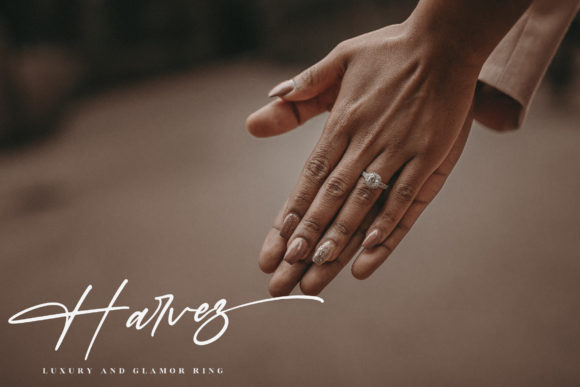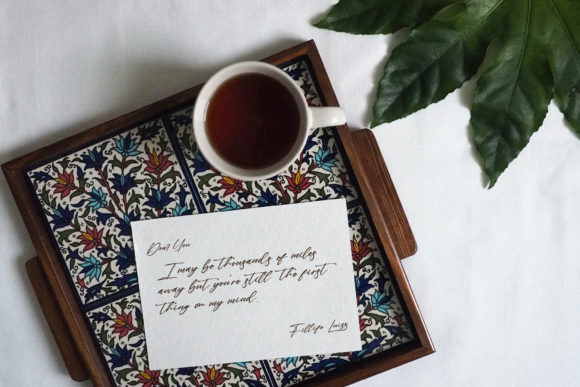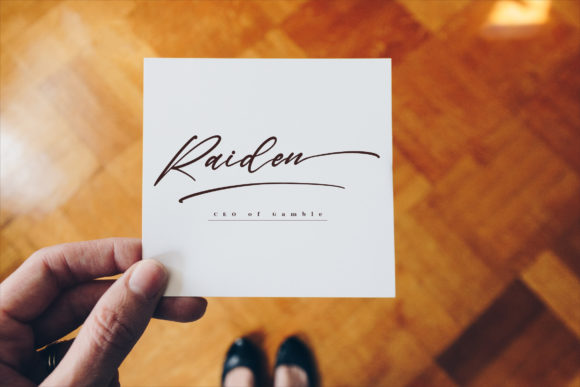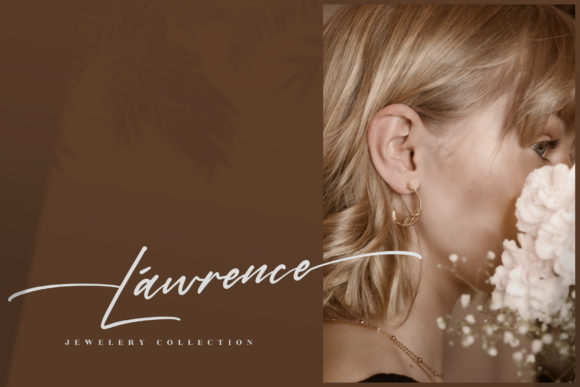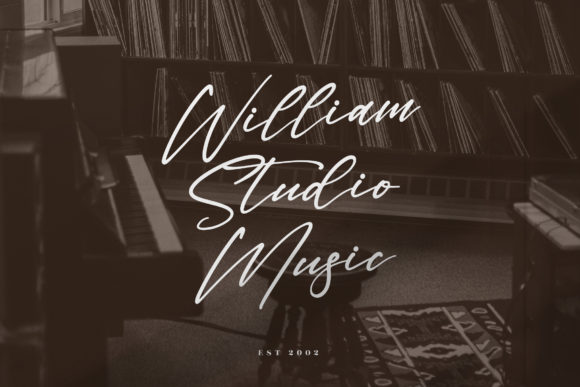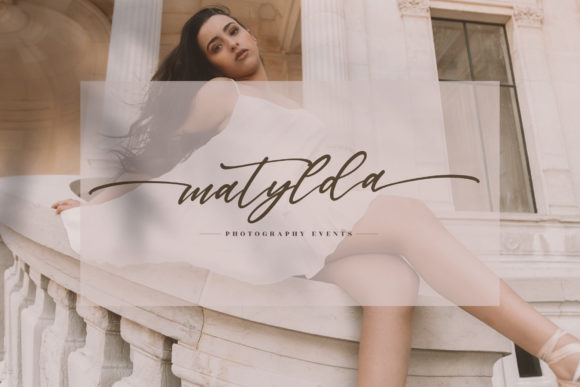
Introducing Contage Bright Font: Elevate Your Designs with Elegance and Class
Are you looking for a font that adds a touch of sophistication and refinement to your designs? Look no further than Contage Bright Font. This lovely and delicate script font is specifically crafted for designers, crafters, and anyone seeking a beautiful and refreshing look for their creative projects. With its elegant and classy appeal, Contage Bright is sure to become your go-to font for a wide range of design applications.
The Beauty of Contage Bright
Contage Bright Font boasts a unique and captivating design that exudes elegance and class. Its delicate script style is perfect for adding a touch of sophistication to any design, whether you’re working on a logo, branding materials, invitations, or social media graphics. The font’s refined and polished look makes it ideal for designers who want to create stunning and professional-looking designs that stand out from the crowd.
One of the standout features of Contage Bright Font is its PUA (Private Use Area) encoding. This means that you can access all glyphs and swashes with ease, giving you greater flexibility and creative control over your designs. With PUA encoding, you can effortlessly navigate the font’s extensive character set, including alternates, ligatures, and swashes, to create unique and eye-catching designs that showcase your creativity.
Contage Bright Font is a versatile font that’s perfect for a wide range of design applications, including:
- Logos and branding materials: Create stunning logos, business cards, and letterheads that exude elegance and sophistication.
- Invitations and events: Design beautiful invitations, wedding stationery, and event materials that make a lasting impression.
- Social media graphics: Elevate your social media graphics, including Facebook posts, Instagram stories, and Twitter headers, with Contage Bright’s refined and polished look.
- Crafting and DIY projects: Add a touch of elegance to your crafting and DIY projects, such as handmade cards, scrapbooking, and journaling.
Why Choose Contage Bright Font?
With so many fonts available, why choose Contage Bright Font? Here are just a few reasons why designers and crafters love this beautiful script font:
- Elegant and classy design: Contage Bright Font boasts a unique and captivating design that adds a touch of sophistication to any design.
- PUA encoded for easy access: With PUA encoding, you can effortlessly access all glyphs and swashes, giving you greater creative control over your designs.
- Versatile and flexible: Contage Bright Font is perfect for a wide range of design applications, from logos and branding materials to social media graphics and crafting projects.
- Beautiful and refreshing look: Contage Bright Font is designed to add a touch of elegance and refinement to your designs, making it perfect for designers seeking a fresh and unique look.